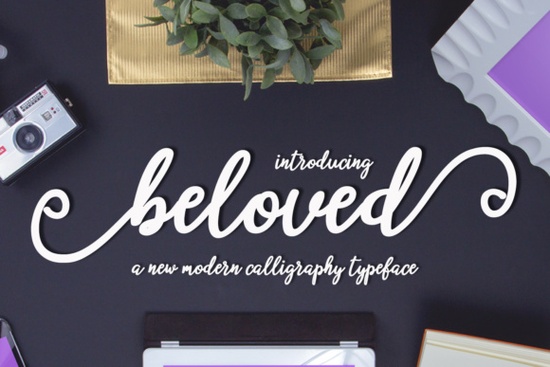
If you’ve been searching for a script font that feels personal, elegant, and just a little bit playful, Beloved Script Font might be exactly what your next project needs. It’s got that handmade calligraphy vibe soft curves, natural flow, and enough character to stand out without overwhelming your layout. Whether you’re designing wedding invites, branding materials, or social media quotes, this font adapts beautifully.
What makes it especially useful is how well it pairs with other fonts in the same family. For example, if you’re working on layered designs or need contrast between headings and body text, you might also like Fairies for its whimsical bounce or Belinda if you want something slightly more formal but still fluid. Each of these has its own personality, so mixing them can add depth to your projects without clashing.
What kinds of projects work best with Beloved Script?
This font shines when used in contexts where warmth and personality matter. Think:
- Wedding stationery place cards, menus, save-the-dates
- Small business branding boutique logos, packaging labels, shop signs
- Social media graphics quote posts, announcement banners
- Print-on-demand products mugs, tote bags, journals with inspirational phrases
It’s not overly ornate, which means it stays readable even at smaller sizes a big plus for things like business cards or product tags. And because it includes decorative alternates and ligatures (if your software supports OpenType), you can tweak individual letters to give each design a custom feel.
How does it compare to other modern scripts?
If you’ve tried Amelia Rose, you’ll notice Beloved has a looser, more casual rhythm less structured, more spontaneous. That doesn’t mean it’s sloppy; it’s intentionally imperfect, like handwriting you’d see in a heartfelt letter. Meanwhile, Family Minimalist offers clean lines and simplicity, which is great for minimalist brands, but lacks the emotional texture Beloved brings.
Any tips for using it effectively?
A few practical suggestions:
- Don’t go too small. While legible, the thin strokes can disappear below 10pt depending on your print method.
- Pair with a simple sans-serif. Fonts like Montserrat or Lato balance its flair without competing.
- Use sparingly in long paragraphs. It’s meant to highlight, not carry bulk text.
- Enable OpenType features. If your design tool allows it (like Adobe Illustrator or Affinity Designer), turn on contextual alternates for smoother connections between letters.
One thing users love is how quickly this font “clicks” into place. You don’t need to spend hours adjusting kerning or spacing it flows naturally, which saves time whether you’re whipping up a quick Instagram story or finalizing client proofs.
Is it beginner-friendly?
If you’re already familiar with this style from other designers, you’ll appreciate how thoughtfully the glyphs are crafted. No two ‘a’s or ‘e’s look exactly alike unless you want them to subtle variations mimic real pen movement.
Whether you’re making something for yourself or a paying client, Beloved Script Font adds charm without demanding perfection. Sometimes that’s exactly what a project needs a little soul, not just polish.